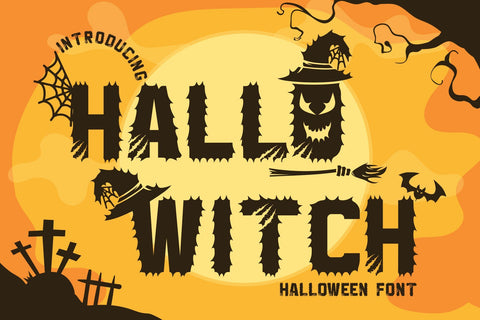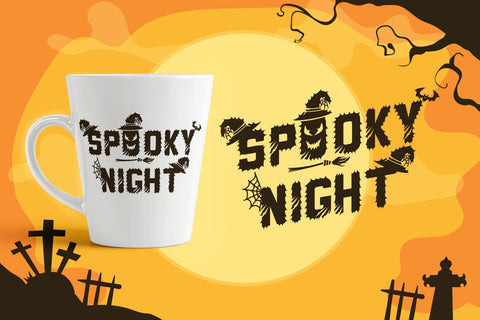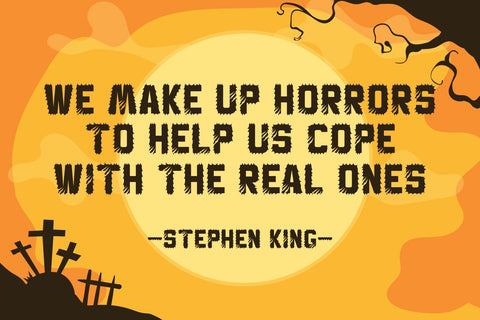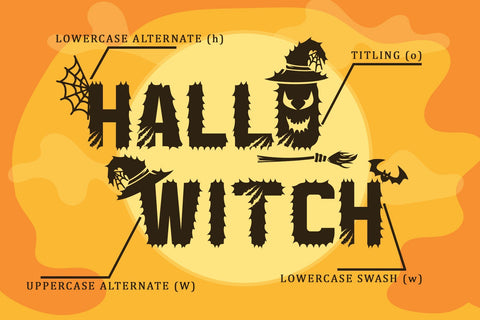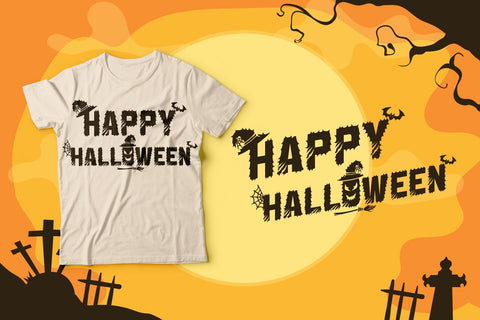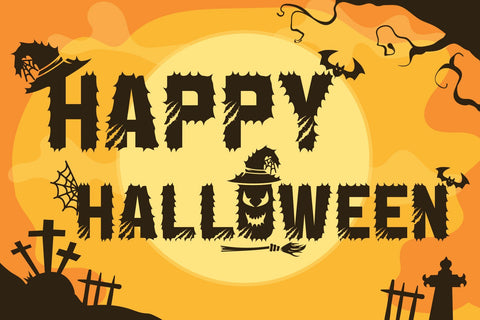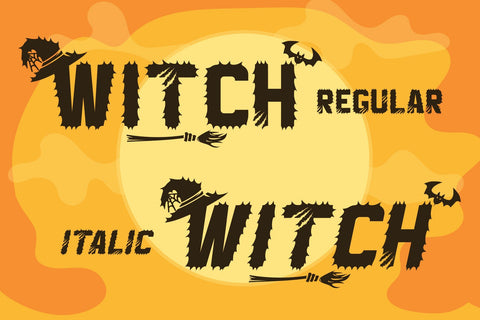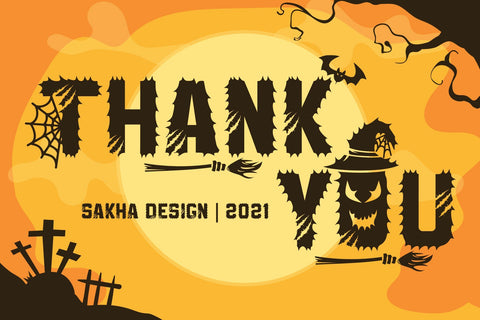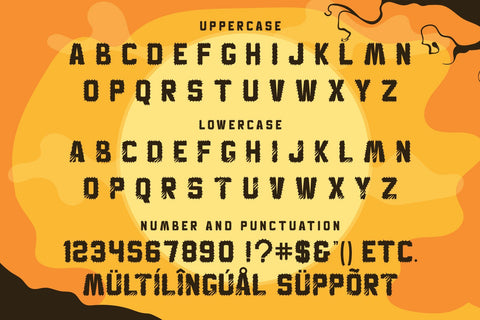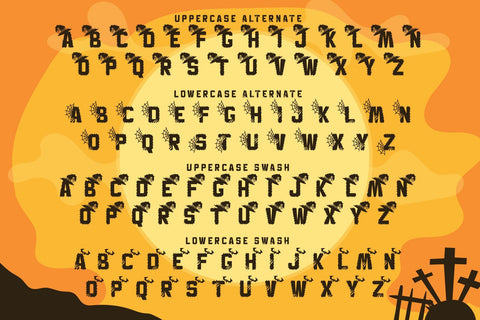
Hallo Witch
Hallo Witch is a cool and spooky decorative font. Add it to each of your Halloween-related designs and notice how easily they stand out. This font is PUA encoded which means you can access all of the glyphs and swashes with ease!